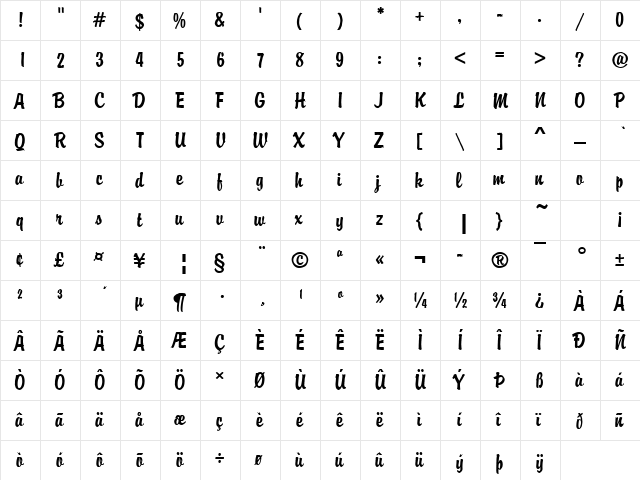
Brody Becker Regular
Design Context for Brody Becker Typeface
Brody Becker is a composed and adaptable typeface that performs quietly and consistently across a wide range of design contexts.